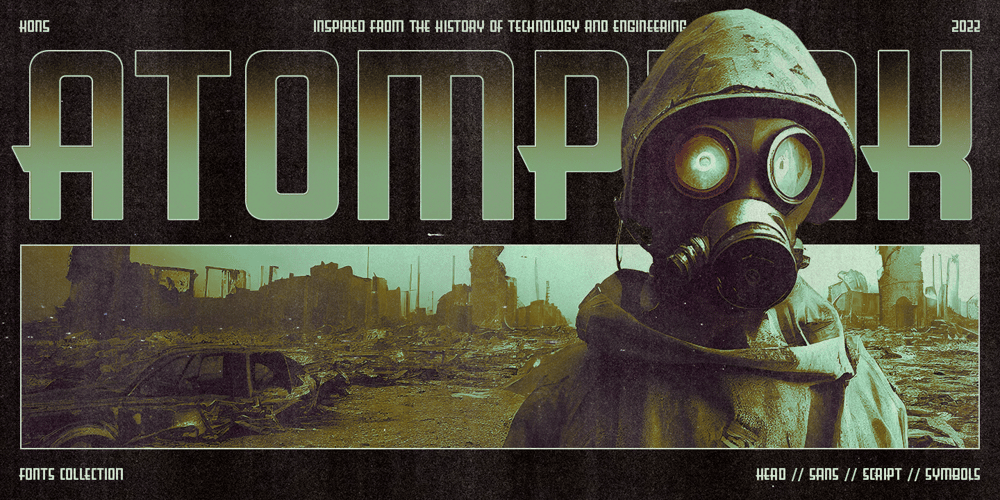
Atompunk Font Family was designed by Abdilah and published by Konstantine Studio. Atompunk contains 5 styles and family package options. Inspired by the first wave of the industrial revolution back in the 60s. The glory of steam and steel machines in manufacturing technology.Atompunk was referenced from the science-fiction visual of the retro-futurism mindset—the imagination of nuclear-based technology for every human need.Perfectly fit for sci-fi movies, serials, technology-based branding, poster, logo, vintage illustration, packaging, snack, event, festival, album artwork, cover artwork, books, toys, games, arcades, cards, automotive, and many more.